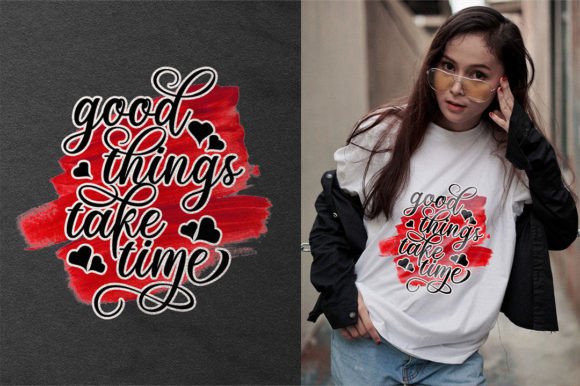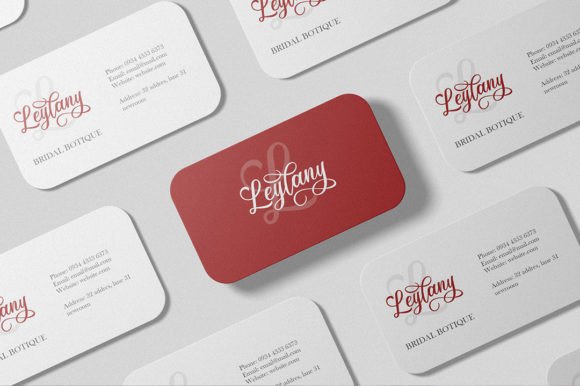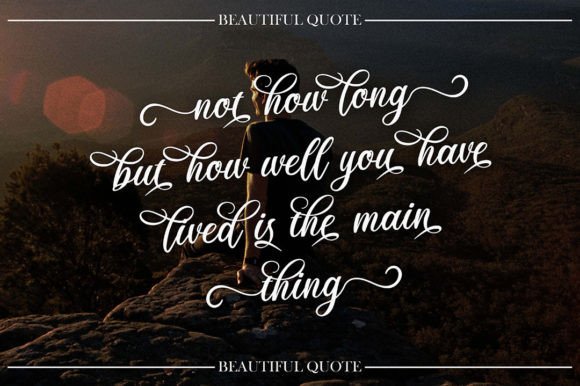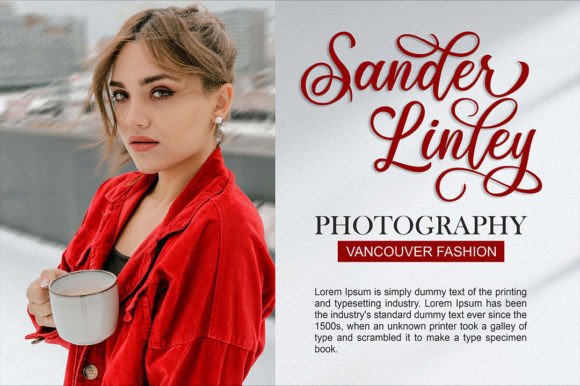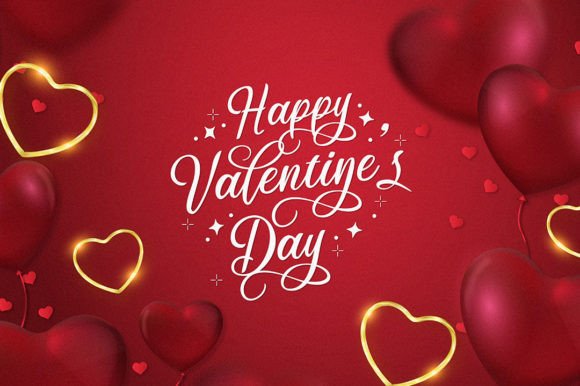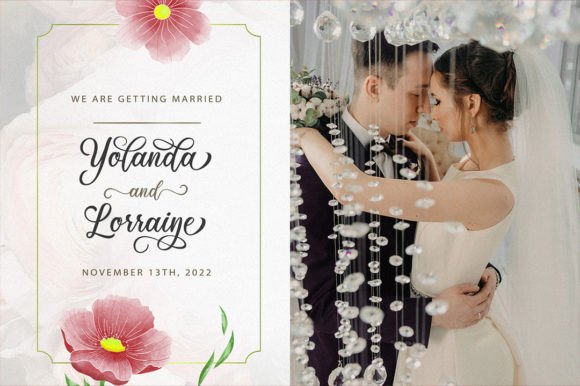
Introduction to Sedatty Font
As a designer, there’s nothing quite like the thrill of bringing a creative project to life. It’s that moment when you stumble upon the perfect font, and everything falls into place. For me, that moment came when I discovered the Sedatty Font. This beautiful and refined script font is a game-changer for designers looking to add a touch of elegance to their work.
The Sedatty Font is more than just a pretty face – it’s a valuable design resource that can elevate your projects from ordinary to extraordinary. With its classy, modern look, it’s perfect for wedding invitations, thank you cards, quotes, and so much more. And the best part? It’s PUA encoded, making it easy to access all of its amazing glyphs and ligatures.
Whether you’re working on a free download project or creating a high-quality design for a client, the Sedatty Font is an excellent choice. Its transparent background and high-quality design make it a versatile tool for designers of all levels.
Key Features of Sedatty Font
- Unique, artistic design style that sets it apart from other fonts
- Perfect for use in various design applications, including graphic design, digital art, and more
Honest Review: Sedatty Font
I recently stumbled upon the Sedatty Font while searching for a unique design resource for a creative project. I was excited to try it out and see if it would meet my expectations. After a thorough review, here are my thoughts on this font.
- High-quality design: The Sedatty Font is a beautifully crafted font with a unique and quirky feel to it.
- Limited character set: The font has a relatively limited character set, which may not be suitable for complex designs or texts.
- No support for bold or italic styles: The font does not offer support for bold or italic styles, which may limit its use in certain design scenarios.
Overall, I was impressed with the Sedatty Font’s unique design and high-quality feel. While it has some limitations, it’s a great resource for designers looking for a creative solution for their projects.
Getting the Most Out of Sedatty Font
Some tips for getting the most out of the Sedatty Font include using it for headings and titles, experimenting with different font sizes and colors, and combining it with other design elements for a unique look. The Sedatty Font is a versatile design resource that can be used in a variety of creative projects.
The Sedatty Font is commonly used for branding, logos, and marketing materials. It’s also a great choice for creating social media graphics, presentations, and documents. With its high-quality design and transparent background, the Sedatty Font is a popular design resource among designers and creatives.